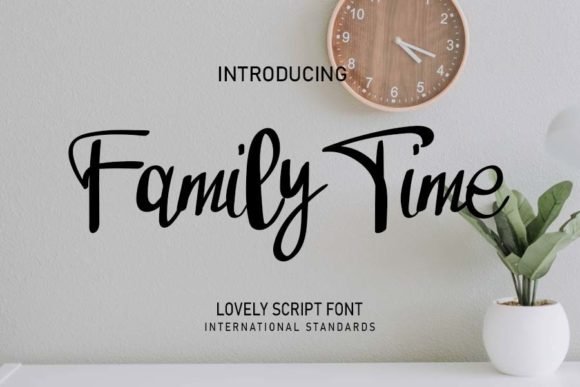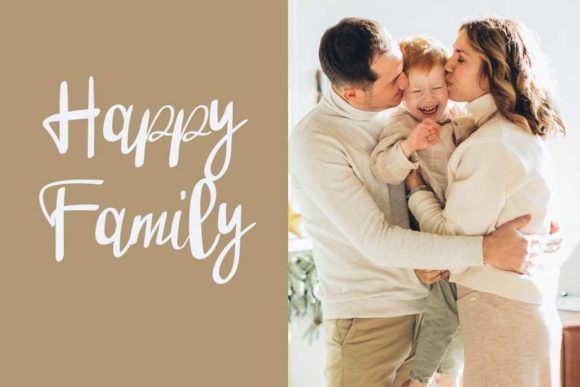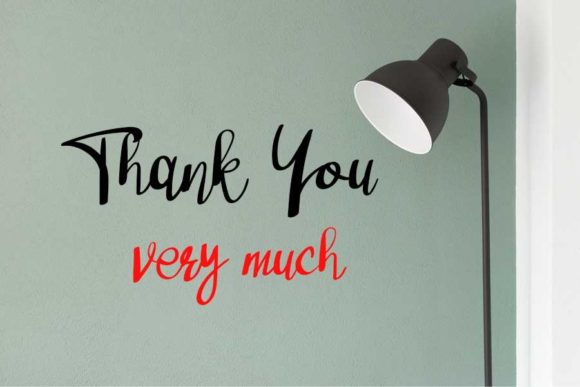
Find Your Perfect Match: Unveiling Family Time Font
As a designer, there’s nothing quite like the thrill of landing on the perfect font for a project. The moment it clicks, and your ideas start flowing – that’s when the magic happens. And for those looking to add a touch of sophistication to their designs, we’ve got just the thing: Family Time Font.
This chic, refined script font is designed to evoke elegance and poise, making it the perfect match for any project. With its stylish alternates and ligatures, Family Time Font is a versatile tool that can elevate your designs from ordinary to extraordinary. Whether you’re working on a high-end branding project or a romantic wedding invitation, Family Time Font is sure to impress.
For designers, Family Time Font is a valuable asset that can help take their work to the next level. Its unique blend of style and sophistication makes it a go-to choice for those who want to create truly memorable designs.
Family Time Font Key Features
- Font Family: Family Time Font is a unique, hand-drawn typeface designed for informal use. It includes 4 font styles: Regular, Italic, Bold, and Bold Italic.
- Character Set: The font contains a comprehensive character set, including uppercase and lowercase letters, numbers, punctuation marks, and special characters.
- Unique Characteristics: The Family Time Font features a playful, handwritten feel with varying letterforms, making it ideal for creating a friendly and approachable atmosphere in designs.
Family Time Font Review
As a designer, I’ve had the chance to work with a variety of fonts, but the Family Time Font is definitely a unique one. Let’s dive in and see what it has to offer!
- Playful feel: The Family Time Font has a fun, whimsical feel that’s perfect for projects that need a bit of personality.
- Good legibility: Despite its playful nature, the font is still easy to read, even at smaller sizes.
- Family-friendly: As the name suggests, this font is great for projects related to family, kids, or education.
- Limited versatility: While it’s great for family-related projects, the font may not be as versatile for other types of projects.
- Not ideal for formal text: The playful feel of the font may not be suitable for formal or professional text.
- Some characters may not be complete: I noticed that some characters, like the ampersand, were not fully designed.
The Family Time Font is a great addition to any designer’s toolkit, but it’s essential to use it for the right type of project. If you’re looking for a fun, family-friendly font, this is a great choice. However, if you need a font for formal or professional text, you may want to look elsewhere.
Tips for Getting the Most Out of Family Time Font
For optimal results, use Family Time Font in combination with other design elements that evoke a warm and playful feel.
Experiment with different font sizes, colors, and arrangements to create visually appealing designs.
Family Time Font is perfect for:
- Creating invitations and greeting cards for family events.
- Designing posters and flyers for family-related activities.
- Adding a personal touch to family